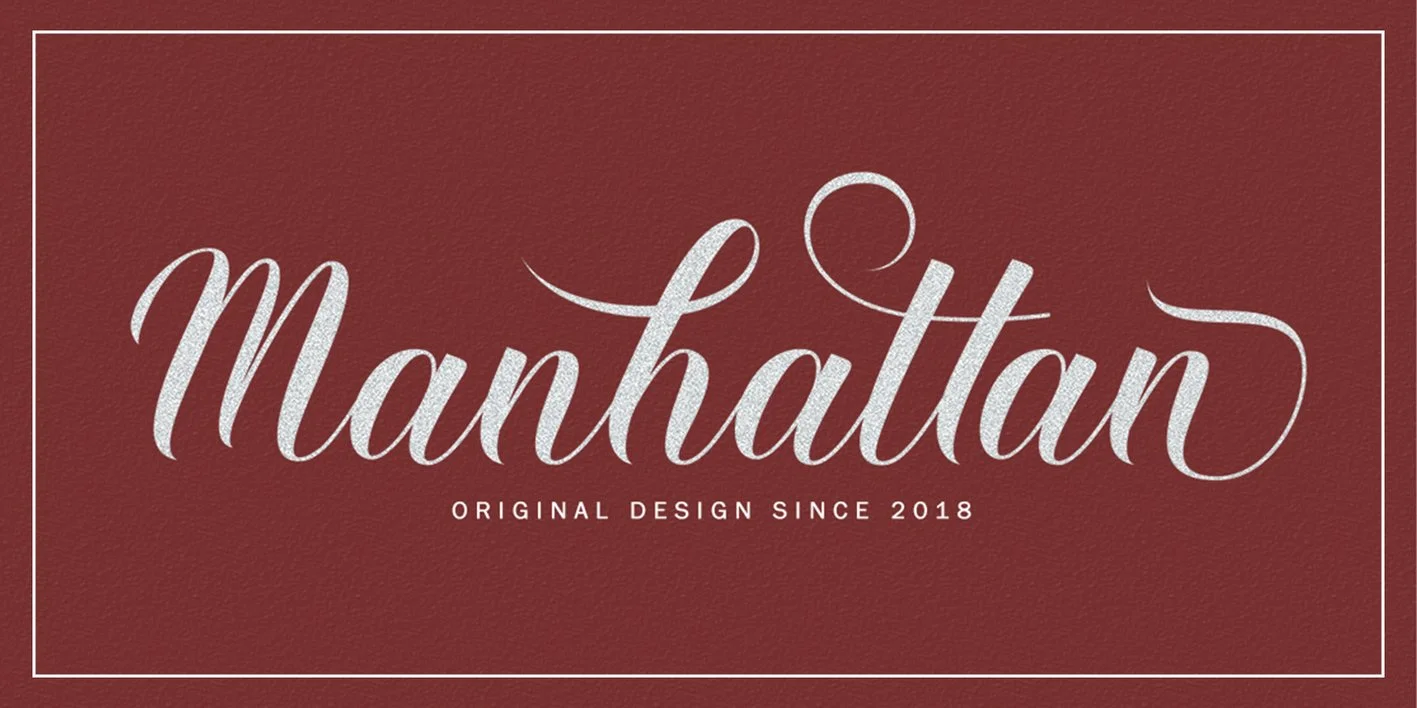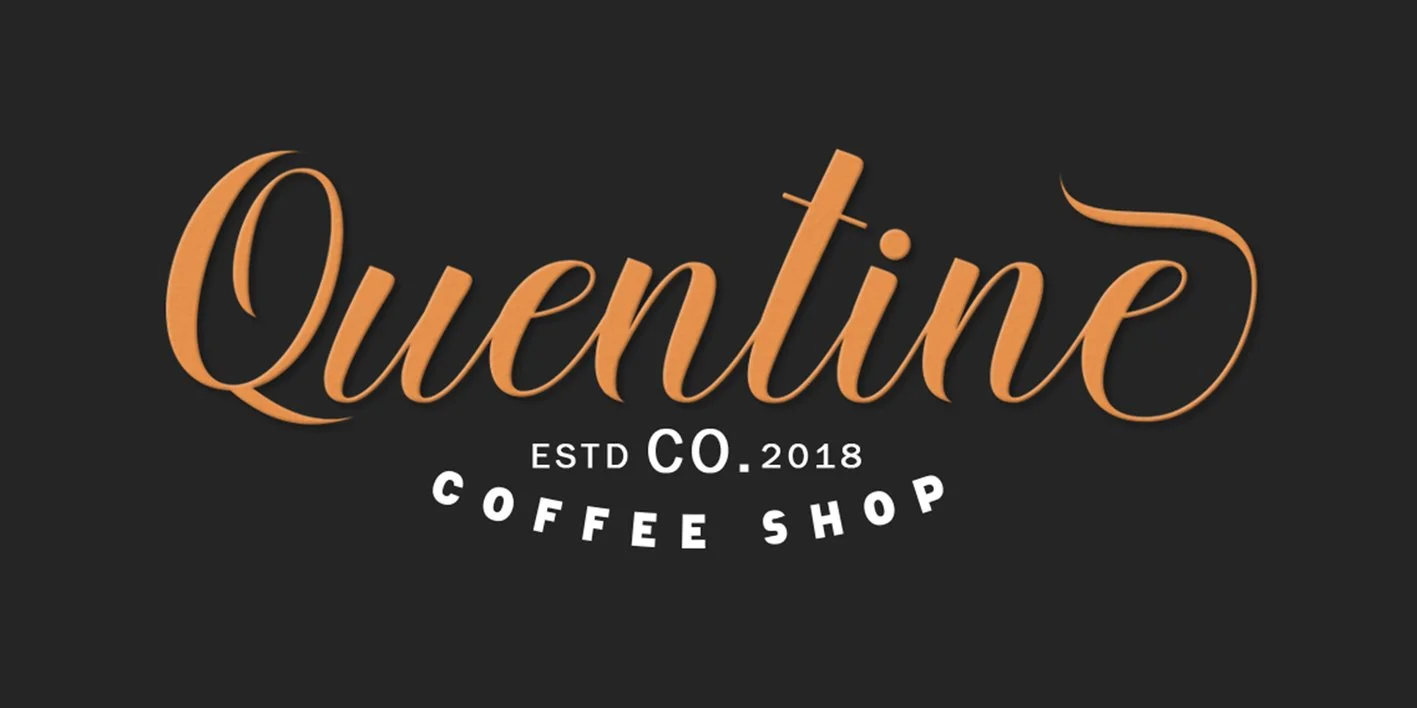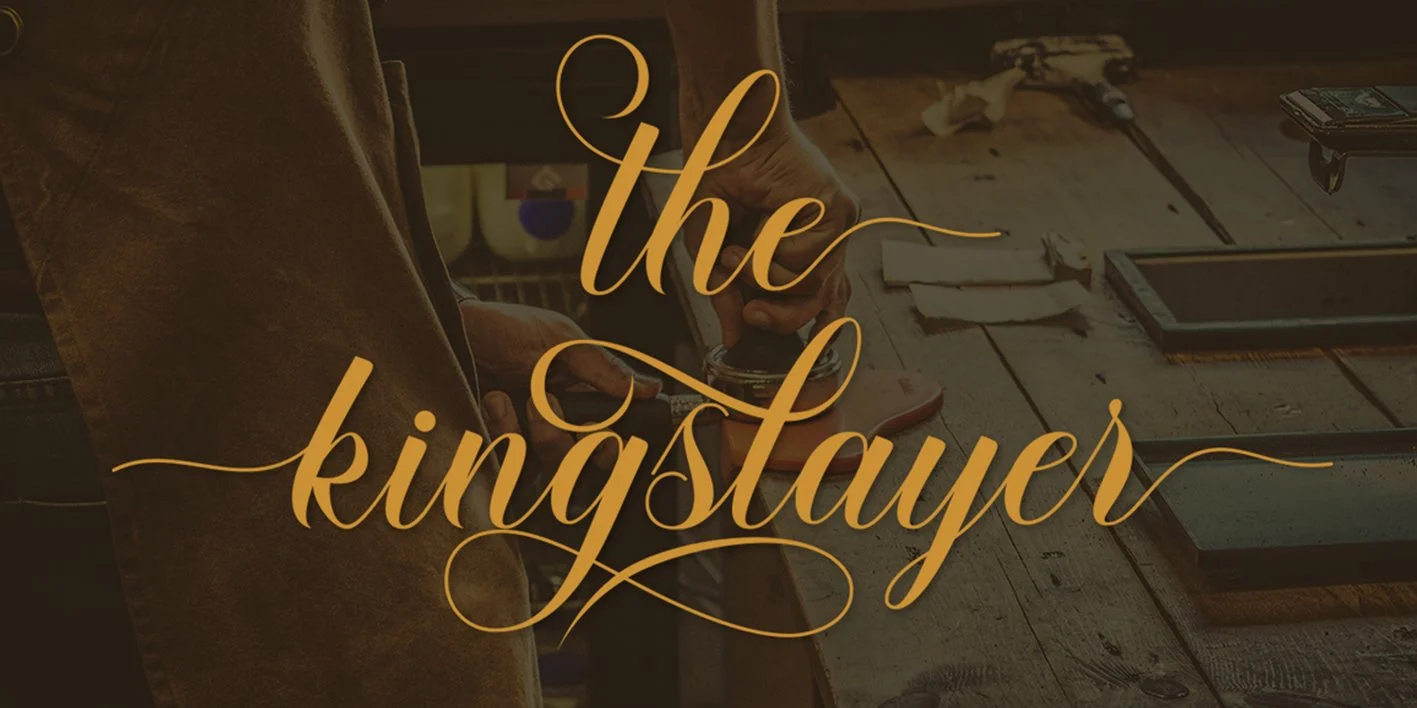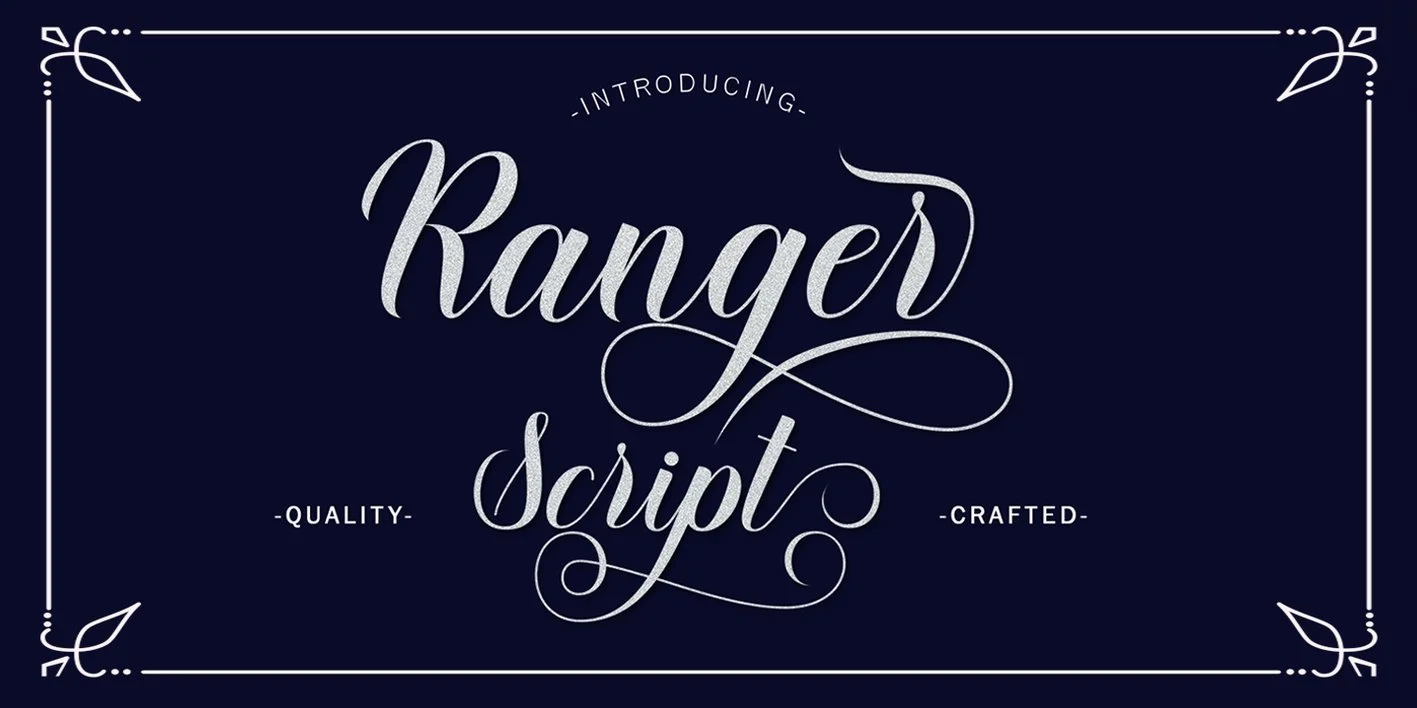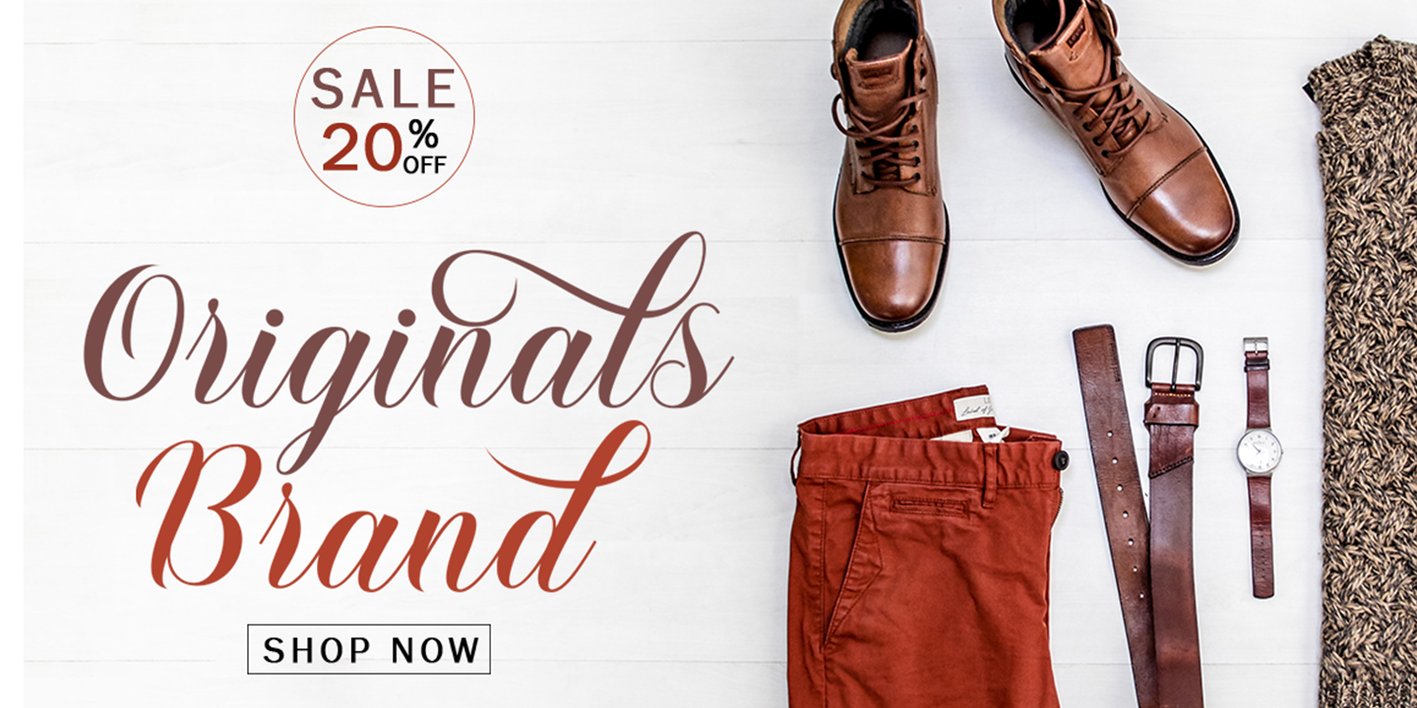
Ranger Script Font
There is a particular satisfaction in finding a typeface that delivers a confident voice that adapts to diverse briefs without compromise. Ranger Script consistently provides it. The typeface brings an elegant, calligraphic sensibility to a broad range of creative disciplines, with distinctive character without sacrificing readability that holds up whether the work is print-first or screen-first.
In practice, Ranger Script proves particularly effective for event signage, beauty packaging, bridal materials, annual reports, signage systems. Designers reaching for it find that the type decisions feel resolved rather than laboured — a useful quality when client timelines are tight.
The range of applications extends to luxury stationery, greeting cards, advertising campaigns, poster creation. That breadth is deliberate: the proportions and spacing were stress-tested across a wide range of mock briefs before the typeface was finalised.
Ranger Script sits comfortably alongside both classic and contemporary typefaces in multi-font hierarchies. It takes direction rather than competing for attention — a quality that experienced designers know is harder to find than it appears.
Freelance designers across print and digital disciplines find Ranger Script a reliable choice for projects that demand both personality and restraint. The design avoids the self-conscious quirkiness that dates quickly, settling instead for considered distinctiveness that holds up over time.